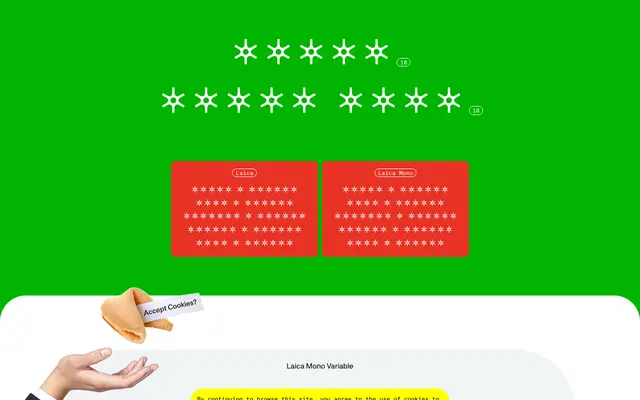
Laica
A humanist sans built from the friction between broad-nib and pointed-nib drawing tools, sketched on trams and in airports by Alessio D'Ellena during his time at the Royal Academy of Art in The Hague.
Designed by Alessio D'Ellena, Laica uses chiselled stroke transitions by default to create optical rhythm across text setting, with a stylistic set offering cleaner, straight-jointed alternates for a more restrained tone. Both the proportional and monospaced subfamilies run across five weights from Light to Bold with matching italics. The calligraphic origins give the letterforms an energy that sits between the rigour of a text face and the looseness of hand-drawn type.
Laica blends broad-nib and pointed-nib calligraphic influences into a sans-serif with chiselled transitions, giving it a humanist warmth distinct from purely geometric or grotesque models. The proportional and monospaced subfamilies share the same calligraphic underpinning.